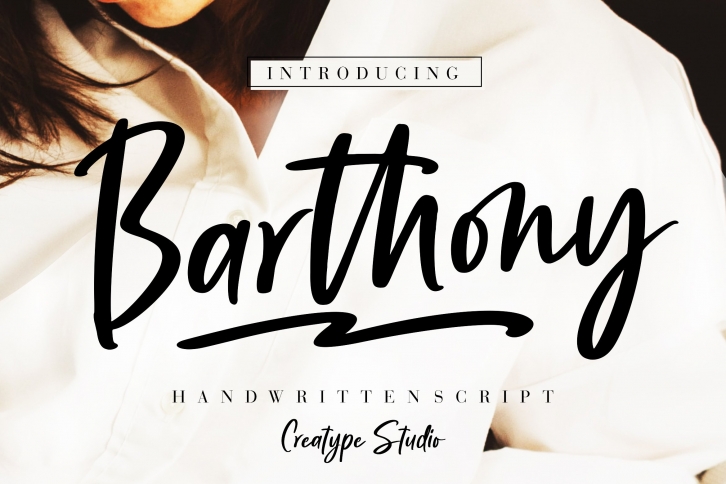
Barthony Handwritten Script is a great font that was designed by Creatype Studio. Imagine the amount of combinations you can create using this font! The archive is 2.97 MB and it was released on April 23, 2021. Barthony Handwritten Script looks beautiful on wedding invitations, greeting cards, logos, posters, labels, t-shirt designs, logos, business cards and is perfect for use in ink or watercolor works, fashion, magazines, packaging and food menus, children's books and more!